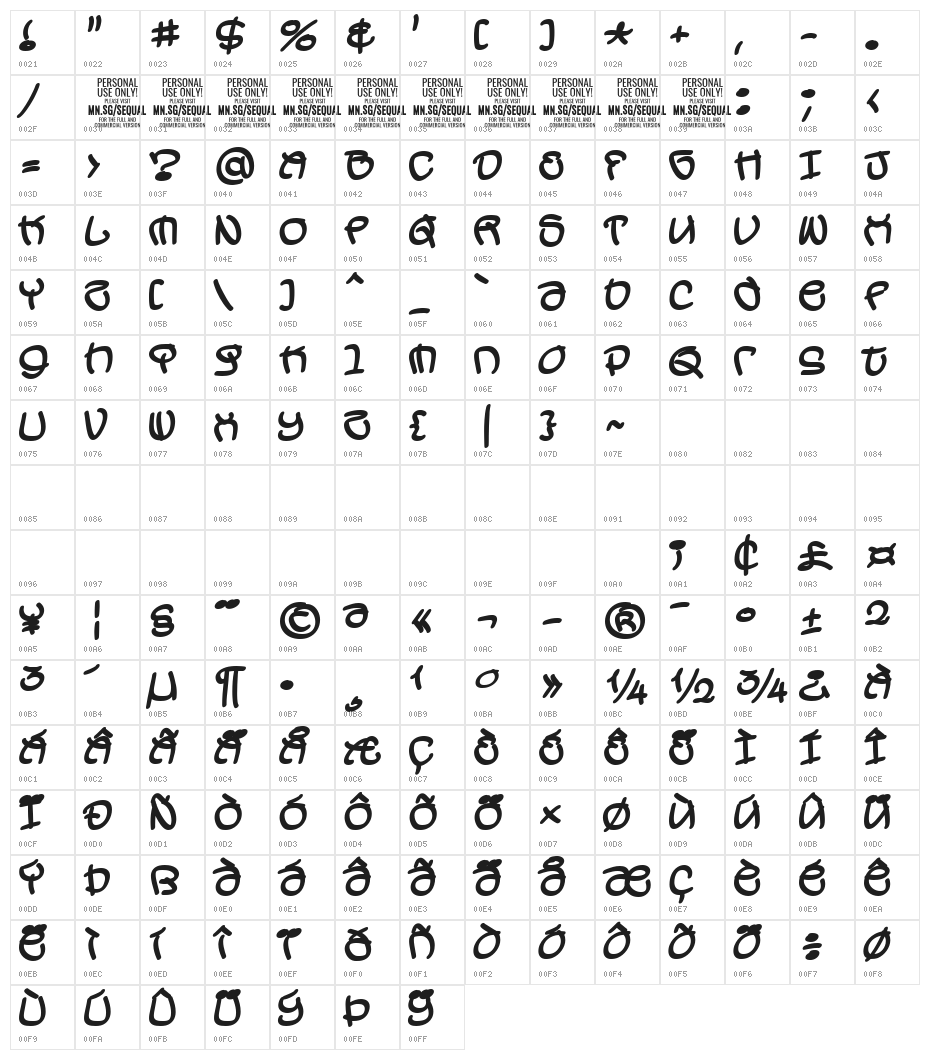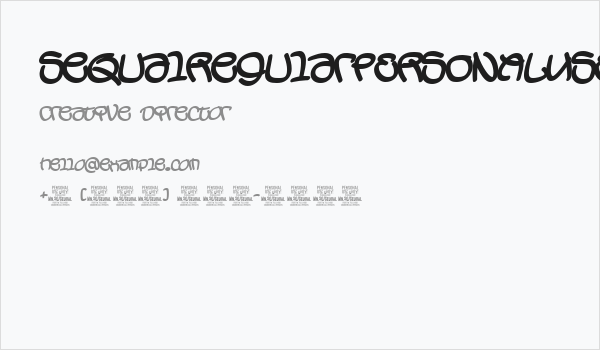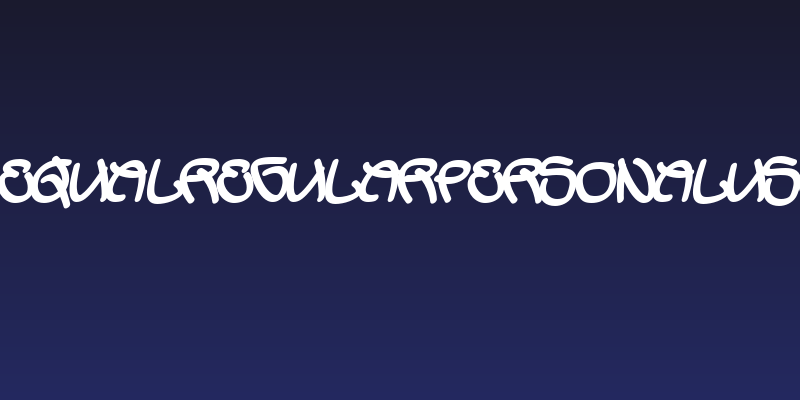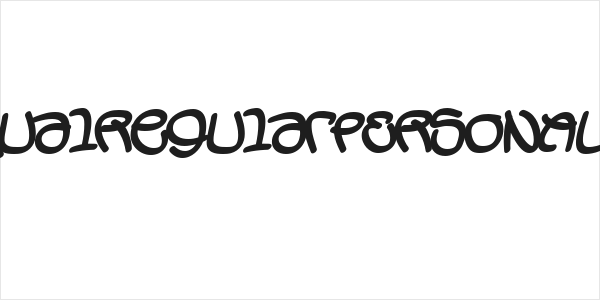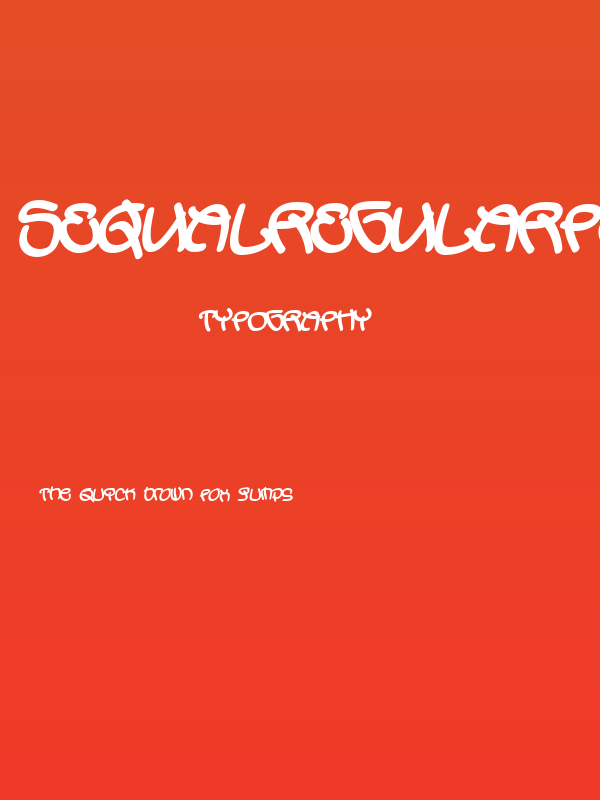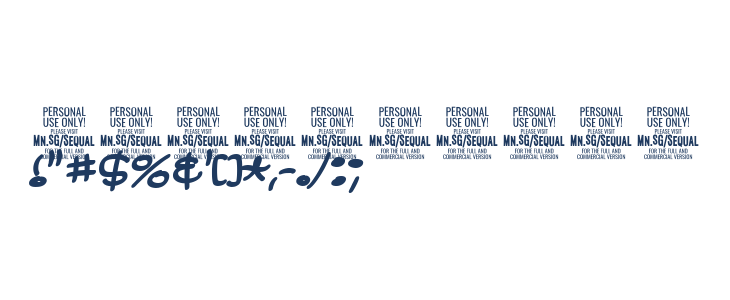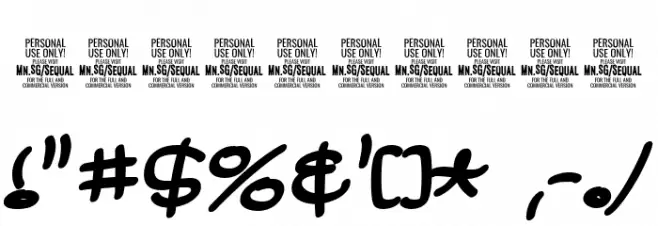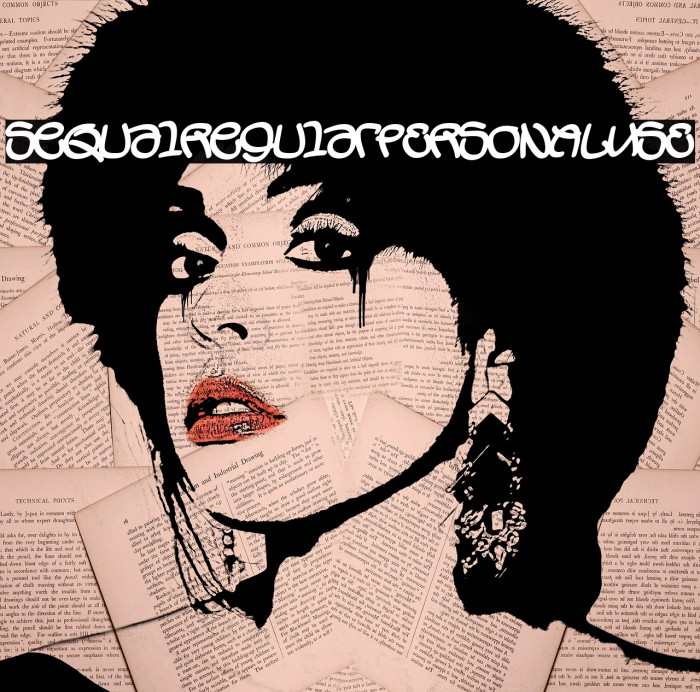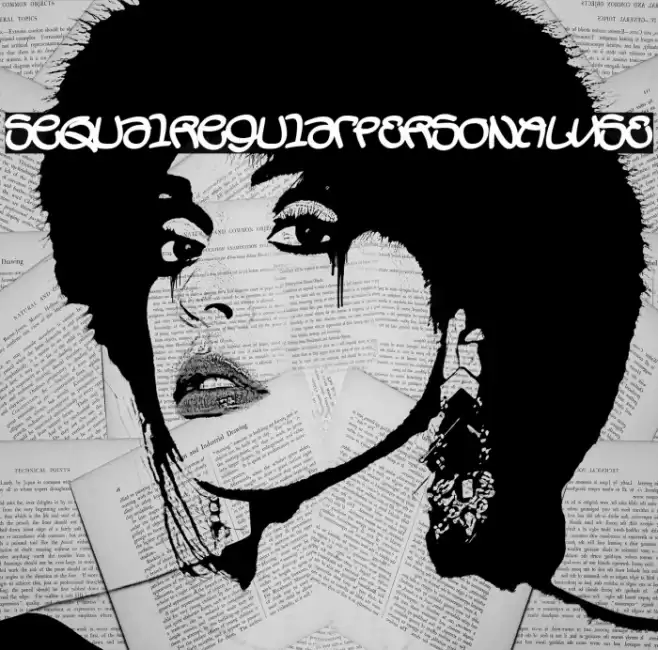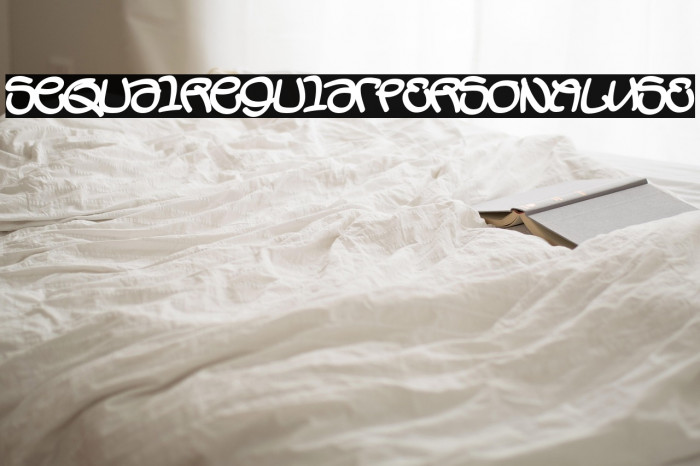
SequalRegularPERSONALUSE Font
SequalRegularPERSONALUSE Description
This font features a bold and expressive style with a unique, artistic flair. The characters are designed with a heavy weight and a playful, almost graffiti-like appearance. Each letter is crafted with a sense of movement and fluidity, creating a dynamic and energetic look. The strokes are thick and consistent, giving the font a strong presence. The overall design is distinctive, making it suitable for creative and unconventional projects. The font's playful nature is emphasized by its rounded edges and flowing curves, which add a touch of whimsy and creativity.
| Overall Style | Modern, Artistic |
| Use Case | Logos, Posters, Creative Projects |
| Proposed Projects | Ideal for street art designs, creative posters, music album covers, and branding for artistic ventures. |